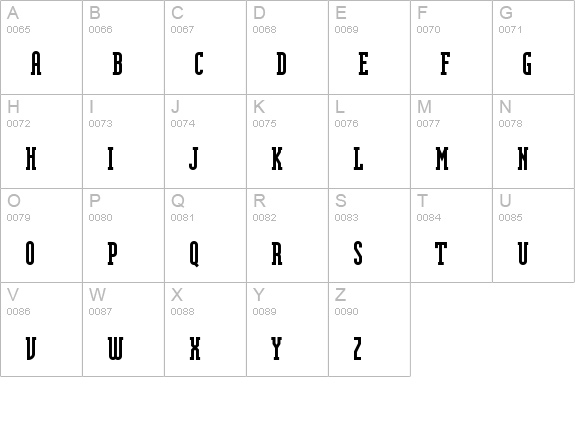
ModulaSerifBlack Font Details
ModulaSerifBlack is a bold and versatile typeface that exudes a sense of sophistication and elegance. Its thick, sturdy serifs command attention and make a strong visual impact, making it perfect for headlines, logos, and branding projects. The sharp edges and clean lines of ModulaSerifBlack give it a modern and sleek appearance, while still maintaining a touch of classic charm. This font is well-suited for a variety of design applications, from print materials to digital projects. Whether you're designing a poster, website, or packaging, ModulaSerifBlack will bring a sense of professionalism and style to your work. Best of all, ModulaSerifBlack is available for free download at FontsMarket.com. This means you can easily access this high-quality font and incorporate it into your designs without any cost. Don't miss out on the opportunity to enhance your projects with the timeless appeal of ModulaSerifBlack. Download it today and elevate your design game!